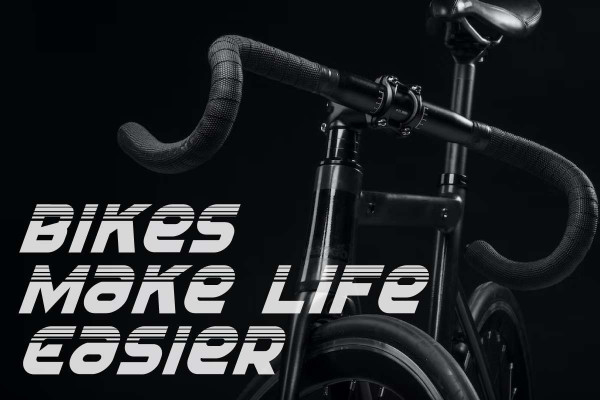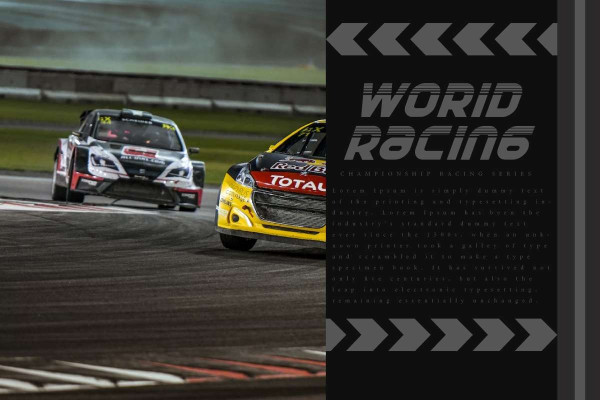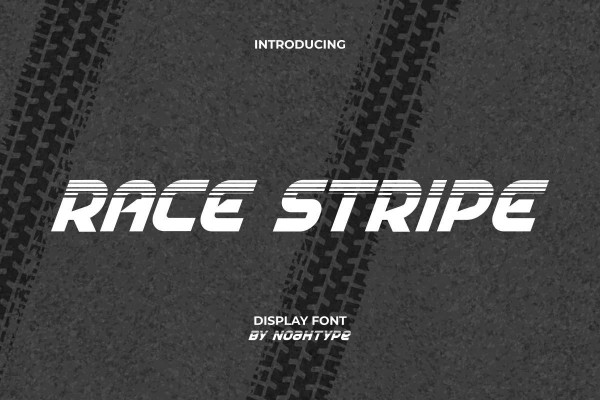
Race Stripe Font
Race Stripe Font is a racing sport with unique lines display font, created by NoahType. This font has a bold appearance with tire marks at the top of the letters that are still easy to read. This font will be suitable for a lot of projects, such as business card, catalog, cover, custom design, label, poster, quote, web, and more!
Race Stripe Font includes full set of Uppercase and Lowercase Basic Characters, Numerals and Punctuation. This font has an attractive appearance that will make you believe it is the perfect choice for many industries, such as advertisement, café, event organizer, fashion, printing, publishing, racing, sports stuff, etc.